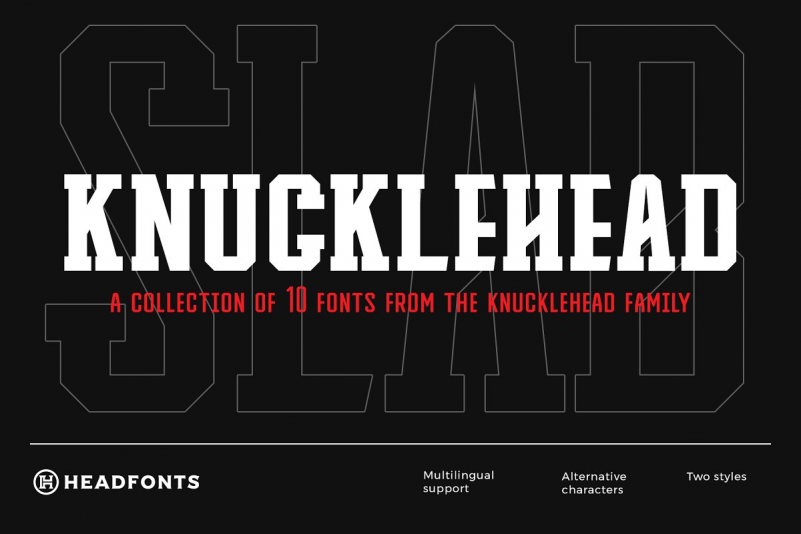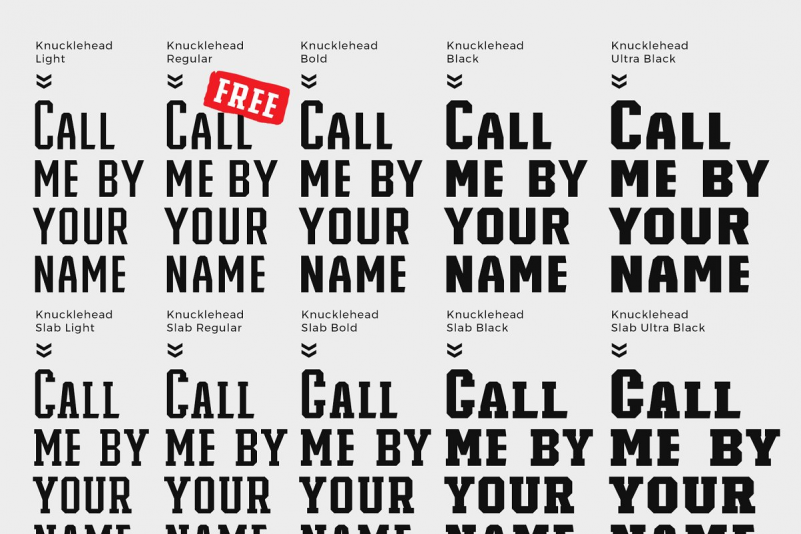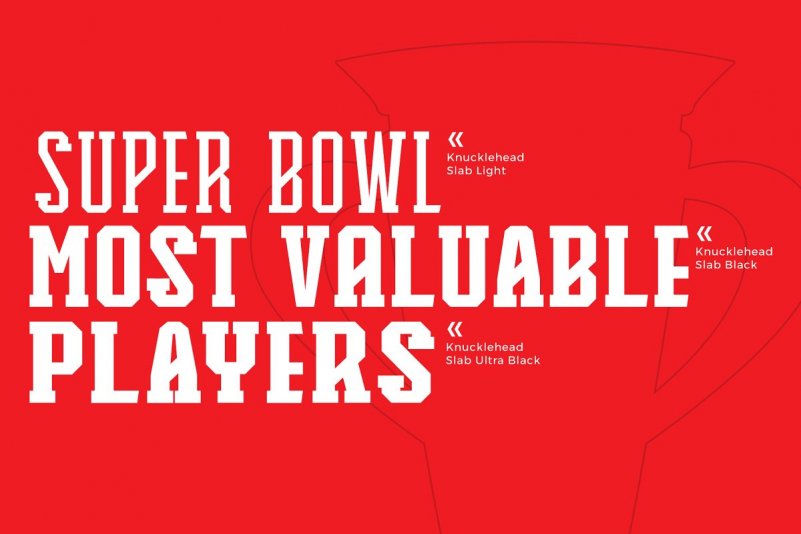
Knucklehead Font
Stand out in the crowd and spread your message across with a creative font family! The source of inspiration for this special font family was the American sport culture. We wanted to create a font that offers the opportunity to communicate in an unique manner by wrapping up the messages in this one of a kind font family. Traditional, yet modern, the Knucklehead font family has that vintage touch that really can draw attention. It is suited for out of the box, modern communication, packaged with a vintage touch that can really make the difference.